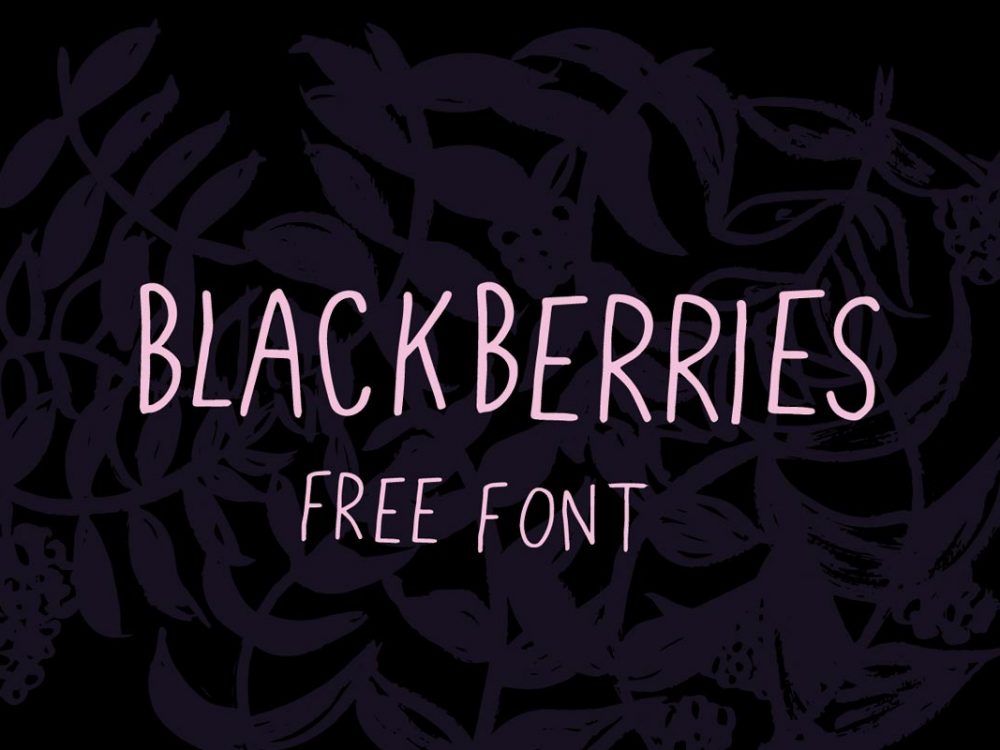
Blackberries Free Font
Blackberries Free Font is an interesting handwritten font that has a simple outline and is perfect for many design projects. Use this font to create wedding invitations, greeting cards, posters, flyers, prints, and more.